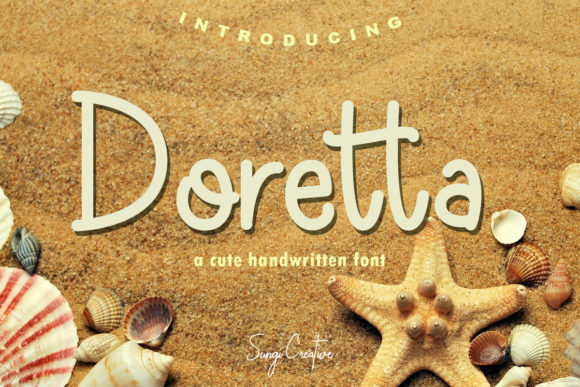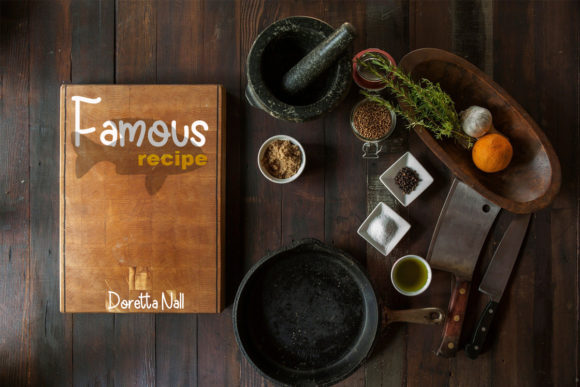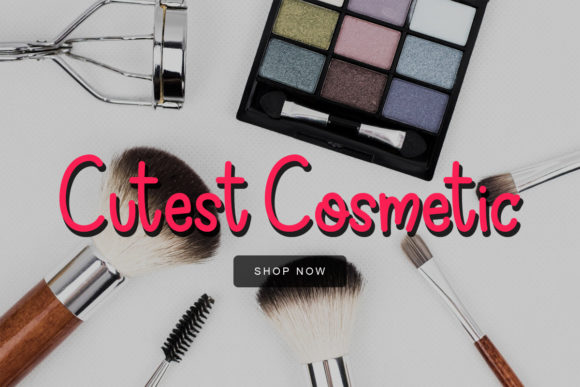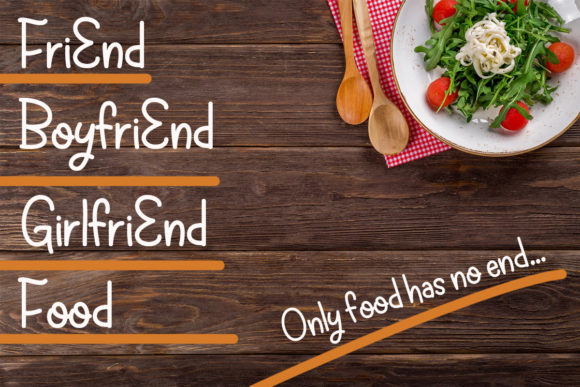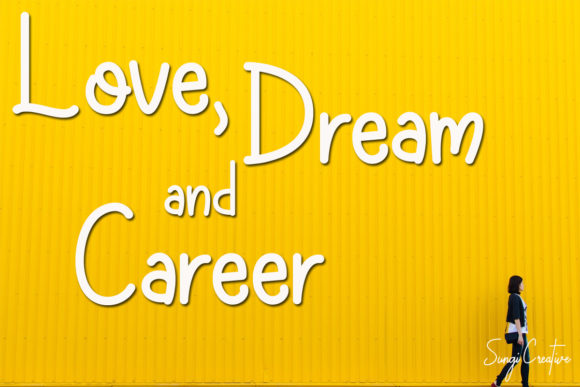
Doretta Font
About Doretta Font
Doretta is a cute handwritten font, carefully handcrafted to become a true favorite. Its casual charm makes it appear wonderfully down-to-earth, readable and, ultimately, incredibly versatile. This font will look outstanding in any context, whether it’s being used on busy backgrounds or as a standalone headline!